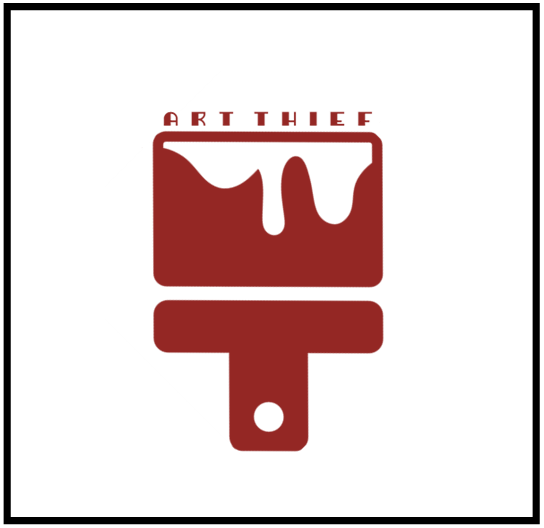
• art deco fonts have long captured my imagination
here is a first attempt, built on the 1x1 grid scale
Nice! Also, Is it just me or is the T slightly taller than the other letters?
It was, thank you for noticing!
All of the letters should now all have the same uniform height
I like the 6 a lot, so weird, lovely
Cool art deco/Broadway vibes. Very minimal and consistent. Sweet, I love it.
A couple points of critique - because I care:
- have you thought about making the "S" circular? It's optically a bit unexpected and thus a little illegible that it's pretty much a flipped "Z" and I see no design constraints to not have it circular.
- I think "M" and "W" would benefit from having only one of their stems thick.
- my guess is that "B" has its smaller bowl on the bottom to make it more consistent with "E" and "H" - I don't think it's ideal.
- I'd tighten the spacing by at least 1/4.
- "Q" is absolutely gorgeous.
Yes, the nubmers. They're a bit unfortunate in my opinion, but that's maybe due to working with a small grid. Although smaller - 1 brick high - circles (with same weight) could prove useful. Or .5 brick high quarter corners, using the standard mac & cheese corners.
And even if you deliberately went for that sharp top and bottom look for the "S" and numbers, to me they look a bit forced compared to the overall form of the typeface. But DON'T change the "8". It's perfect.
I've attached an image to explain my points, some suggestions etc. It's NOT a screenshot from FontStruct, it's straight out of Adobe Illustrator, so may not be entirely doable in FS.
Of course - you have all the right to disagree and I respect that. Those are just suggestions or how I would improve it. It's your vision and ultimately your font.
It's still great as it is!
Thank you for your critique and glyph sample! I tried some of the techniques included in the sample, and while some of the designs did not transfer as well into fontstruct as I would have hoped, reducing the W and M looks noticeably better, those adjustments have been made (a new sameple is included below). Thanks for the input!
This is great. I agree with @Neoqueto on the spacing.
@meek, thank you for the comment, the spacing has been adjusted. Please let me know of any thoughts you may have, the input is greatly appreciated!